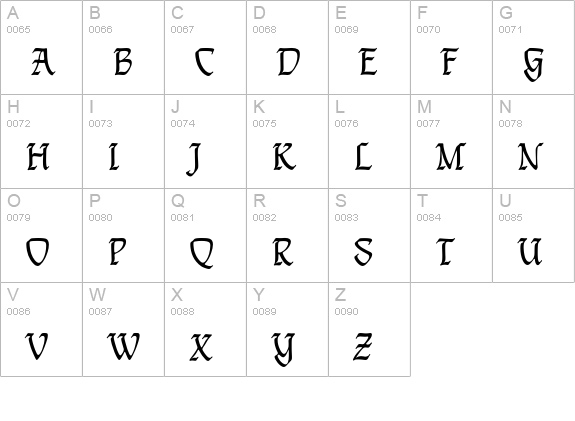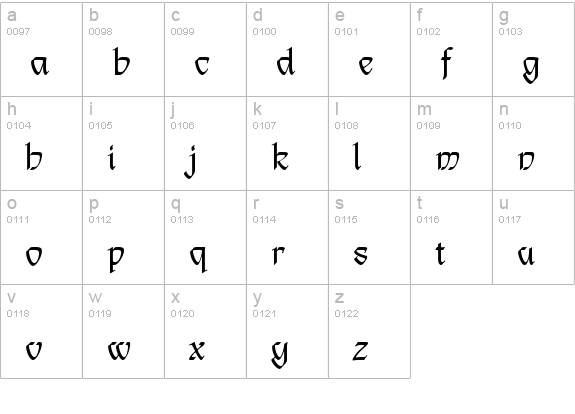
LindsayEF Font Details
Introducing LindsayEF font, a captivating and versatile typeface that exudes elegance and sophistication. With its sleek lines and modern design, LindsayEF is perfect for a wide range of design projects, from branding to editorial layouts. This exquisite font is available for free download at FontsMarket.com, making it easily accessible to designers and creatives looking to add a touch of class to their work. Whether you're creating a logo, poster, website, or any other design project, LindsayEF is sure to make a statement and leave a lasting impression. Embrace the beauty and versatility of LindsayEF font and take your designs to the next level. Download it today and let your creativity soar!